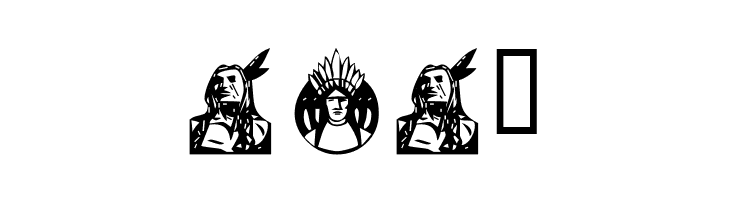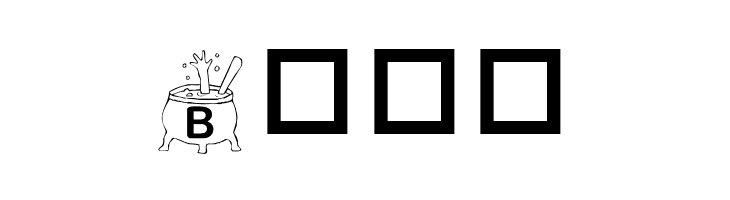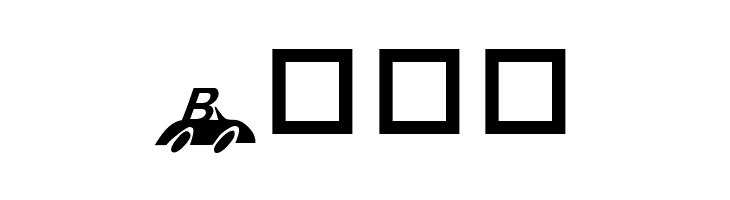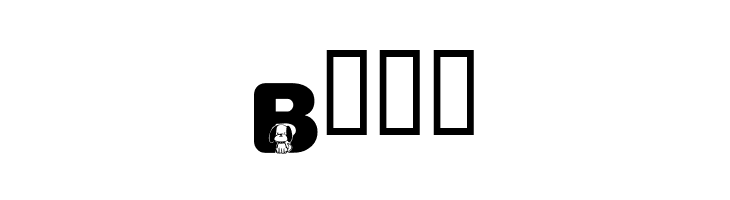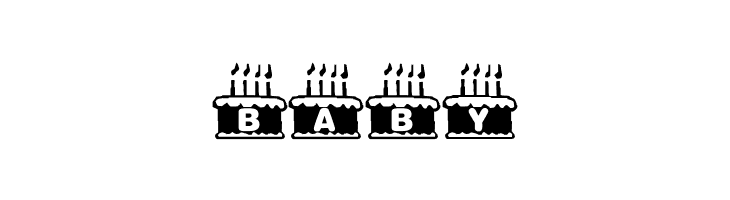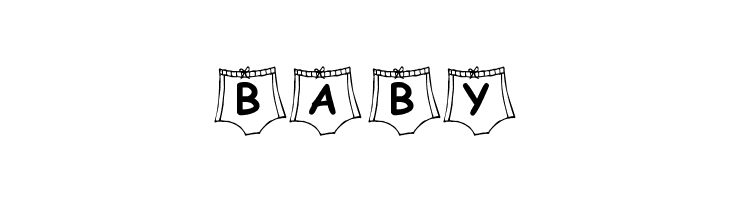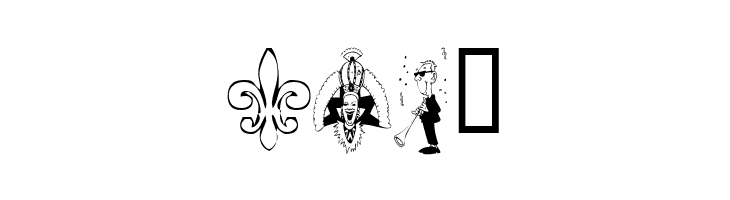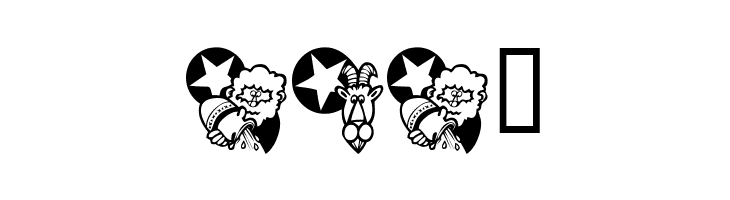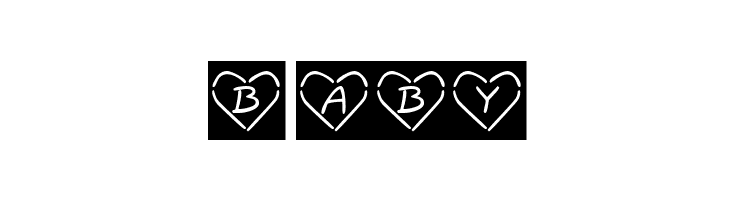
A playful, decorative font with letters emerging from magician hats with rabbit ears.
A playful font with characters emerging from magician's hats, ideal for whimsical projects.
A whimsical, decorative font with letters emerging from steaming cups.
A whimsical, decorative font with letters formed from swirling steam above teacups.
A festive dingbat font with Mardi Gras-themed illustrations.
A dynamic, marker-style font with playful, hand-drawn characteristics.
A bold, decorative font with cowboy hat motifs integrated into each letter.
A bold, decorative font with characters set in cowboy-themed silhouettes.
Animal silhouette dingbat font with playful, bold shapes.
A decorative font with letters encased in ornate mirror frames, perfect for whimsical designs.
A whimsical, mirror-framed decorative font with a fairy-tale aesthetic.
A playful, retro font with bold letters encased in circular frames.
A playful, decorative font with characters encased in ring-like designs, reminiscent of vintage typewriter keys.
A bold, playful font with moon-themed decorative elements and a modern style.
A whimsical, celestial-themed decorative font with bold, starry characters.
A decorative font with playful holiday-themed icons.
A whimsical font with characters inside steaming coffee cups, perfect for creative designs.
A playful font with characters inside steaming coffee cups, ideal for cozy and warm designs.
A decorative font with Mother's Day-themed designs and playful elements.
A decorative font with characters enclosed in film reel emblems, ideal for cinema-themed designs.
A playful, film-themed font with bold, rounded characters encased in camera motif badges.
A playful font with letters on hand trucks, perfect for dynamic and fun designs.
A playful font with letters inside hand trucks, suggesting movement.
A whimsical font with bold letters and a bunny illustration beside each character.
A playful font with bold letters encased in circles, accompanied by bunny illustrations.
A decorative font featuring playful musical instrument designs.
A decorative dingbat font with Native American-inspired symbols and illustrations.
A decorative font with culturally inspired symbols and illustrations.
A playful font with neon-outlined letters inside heart shapes, perfect for romantic themes.
A decorative zodiac-themed font with playful and whimsical illustrations.
A decorative font with letters inside birthday cakes, ideal for festive designs.
A whimsical font with characters inside bubbling cauldrons, perfect for fantasy themes.
A whimsical font with letters inside cartoonish swimsuits, perfect for playful themes.
A playful font with each letter integrated into a car design, ideal for racing themes.
A playful, decorative font with puppy illustrations in bold, rounded letters.